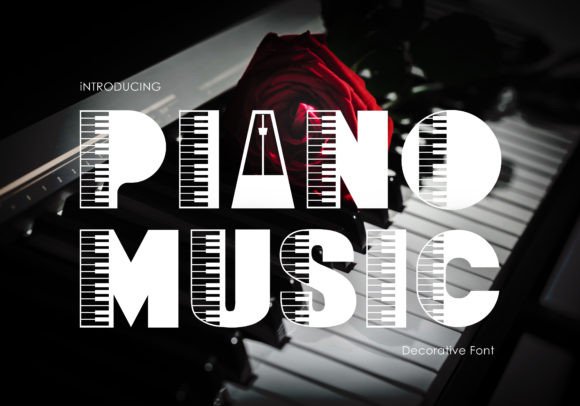
Introducing Piano Music Font, the ultimate choice for those seeking the perfect blend of creativity and musicality in their designs. Created by BB Type Studios, this decorative font is here to elevate your projects to new heights and leave an everlasting impression on anyone who lays eyes on it.
With its captivating and harmonious design, Piano Music Font allows you to unlock a world of endless possibilities. Whether you're designing music book covers, concert greeting cards, or any other creation that requires a unique musical feel, this font is your one-stop solution. It effortlessly adds a touch of elegance and sophistication to any design, making it truly stand out from the crowd.
Imagine the power of using Piano Music Font to create eye-catching posters for upcoming concerts or music events. Its captivating curves and graceful lines will instantly grab the attention of your audience, leaving them mesmerized and eager to attend. This font has the ability to evoke strong emotions and create a sense of anticipation, setting the stage for a truly memorable experience.
But the magic of Piano Music Font doesn't stop there. Its versatility allows you to explore various creative avenues, enabling you to design stunning album covers, music-themed websites, and even personalized merchandise. Let your imagination run wild as you transform ordinary projects into extraordinary masterpieces.
What sets Piano Music Font apart is its ability to convey the emotion and passion that music embodies. Each letter is crafted with utmost care, ensuring that every word you create resonates with the power of a symphony. It's not just a font; it's a gateway to a world where music and design intertwine, creating a harmonious blend that captivates the senses.